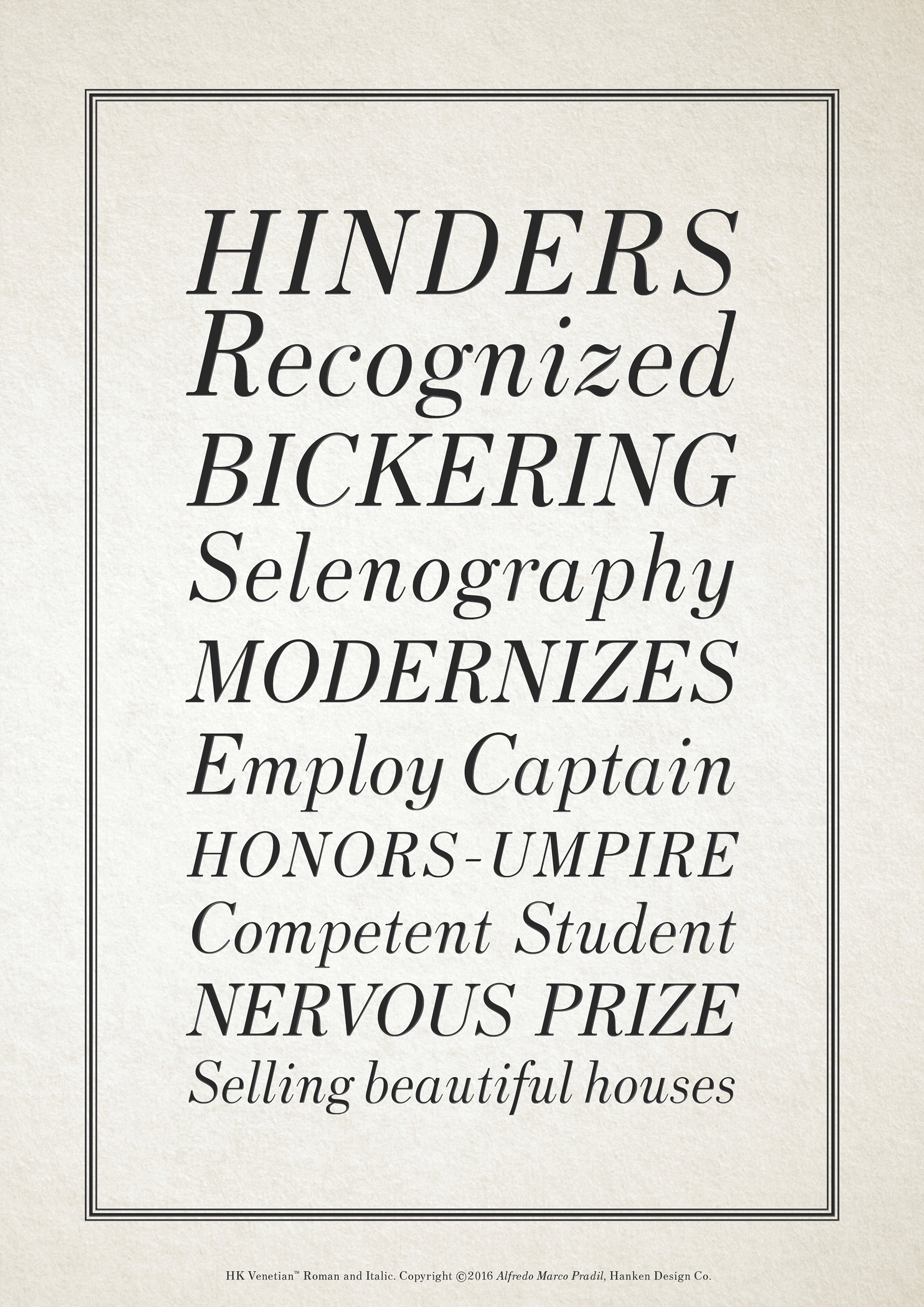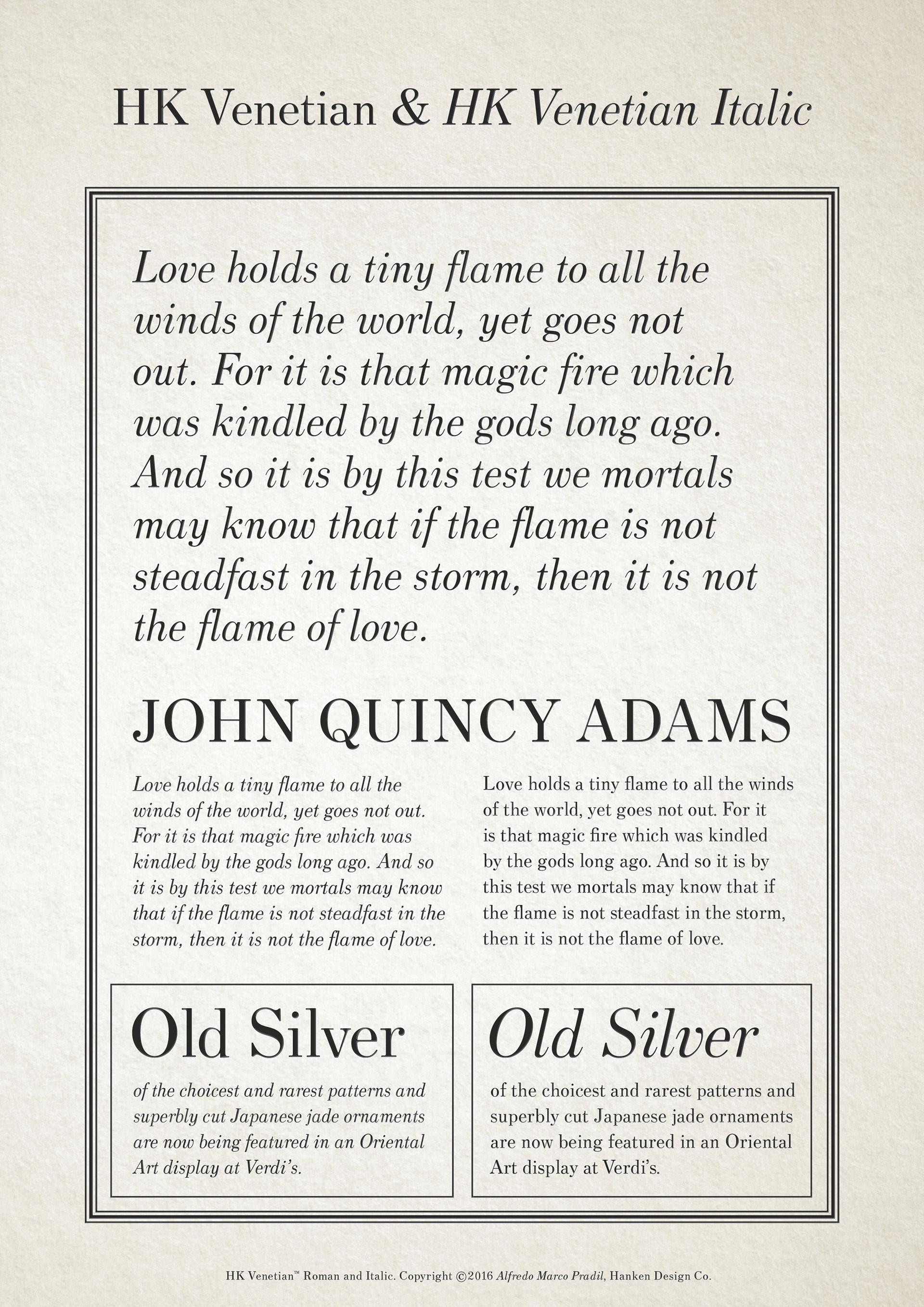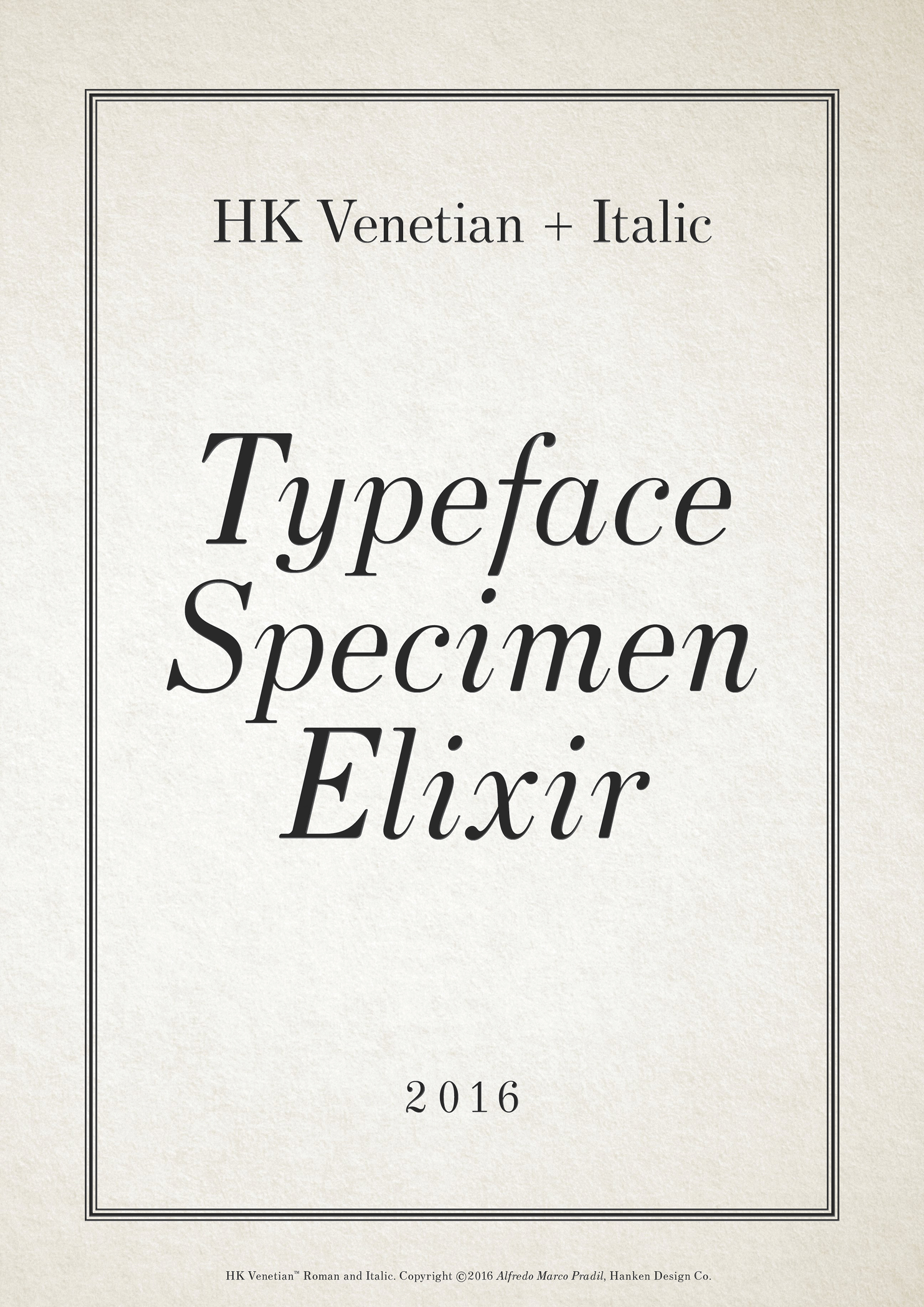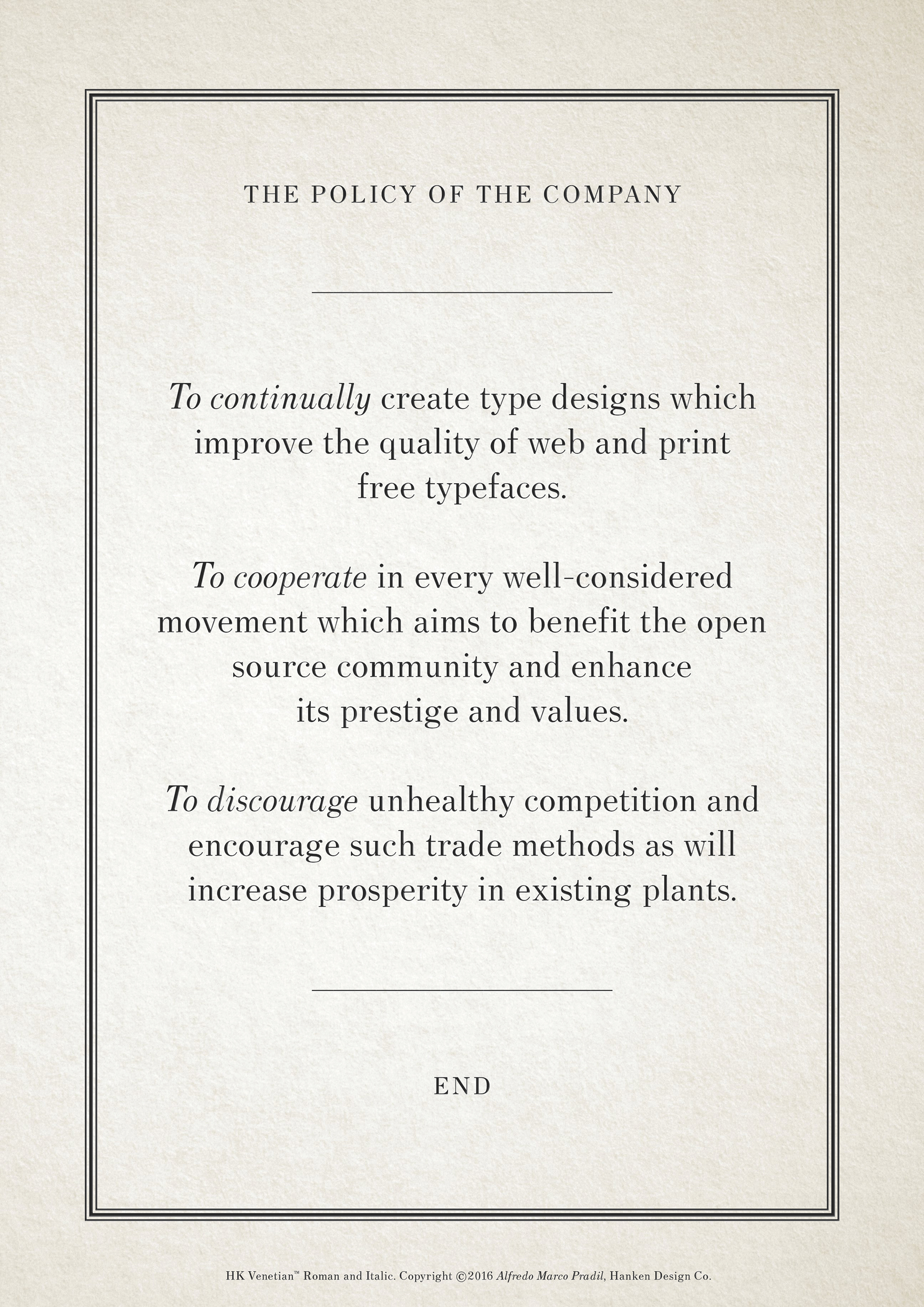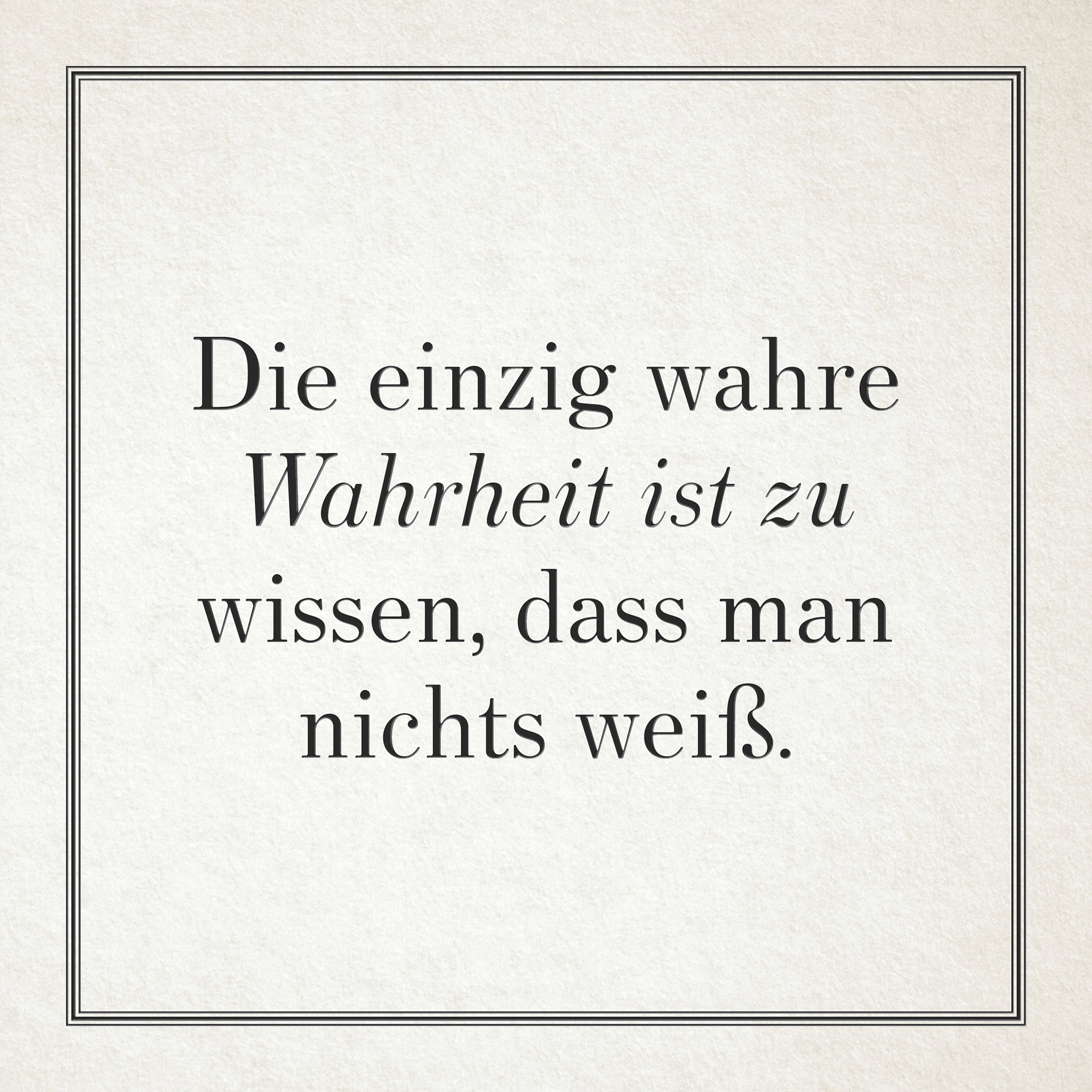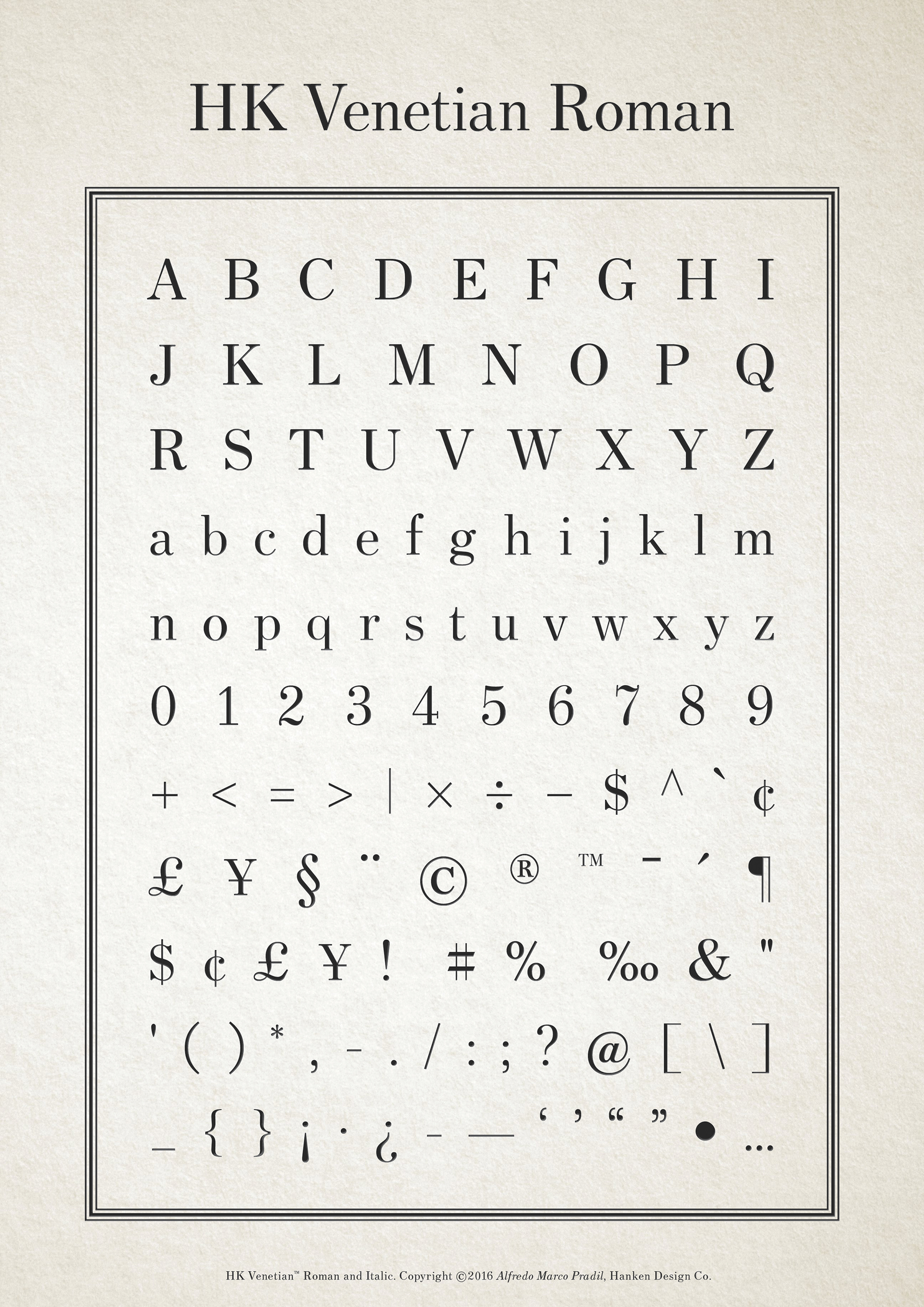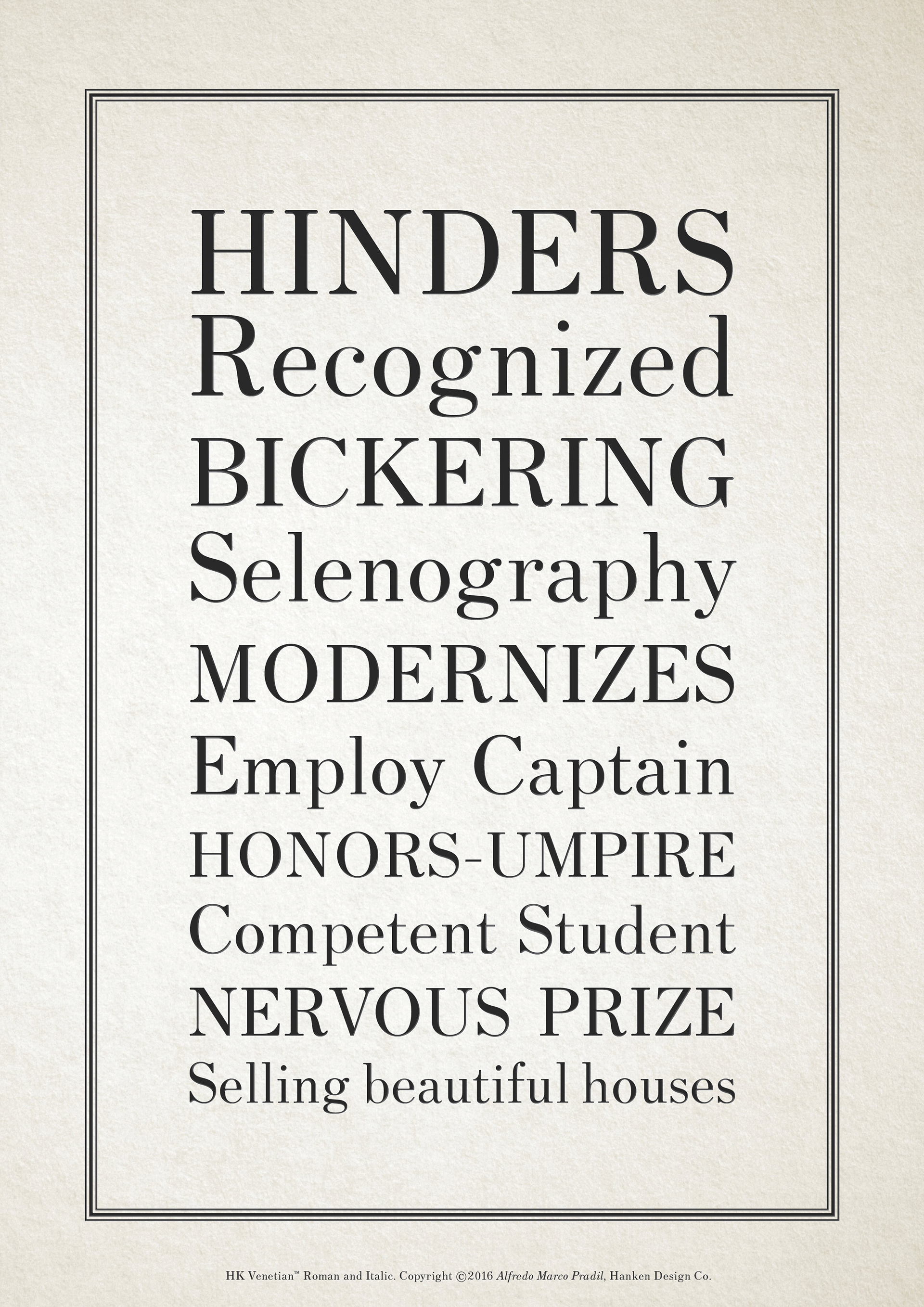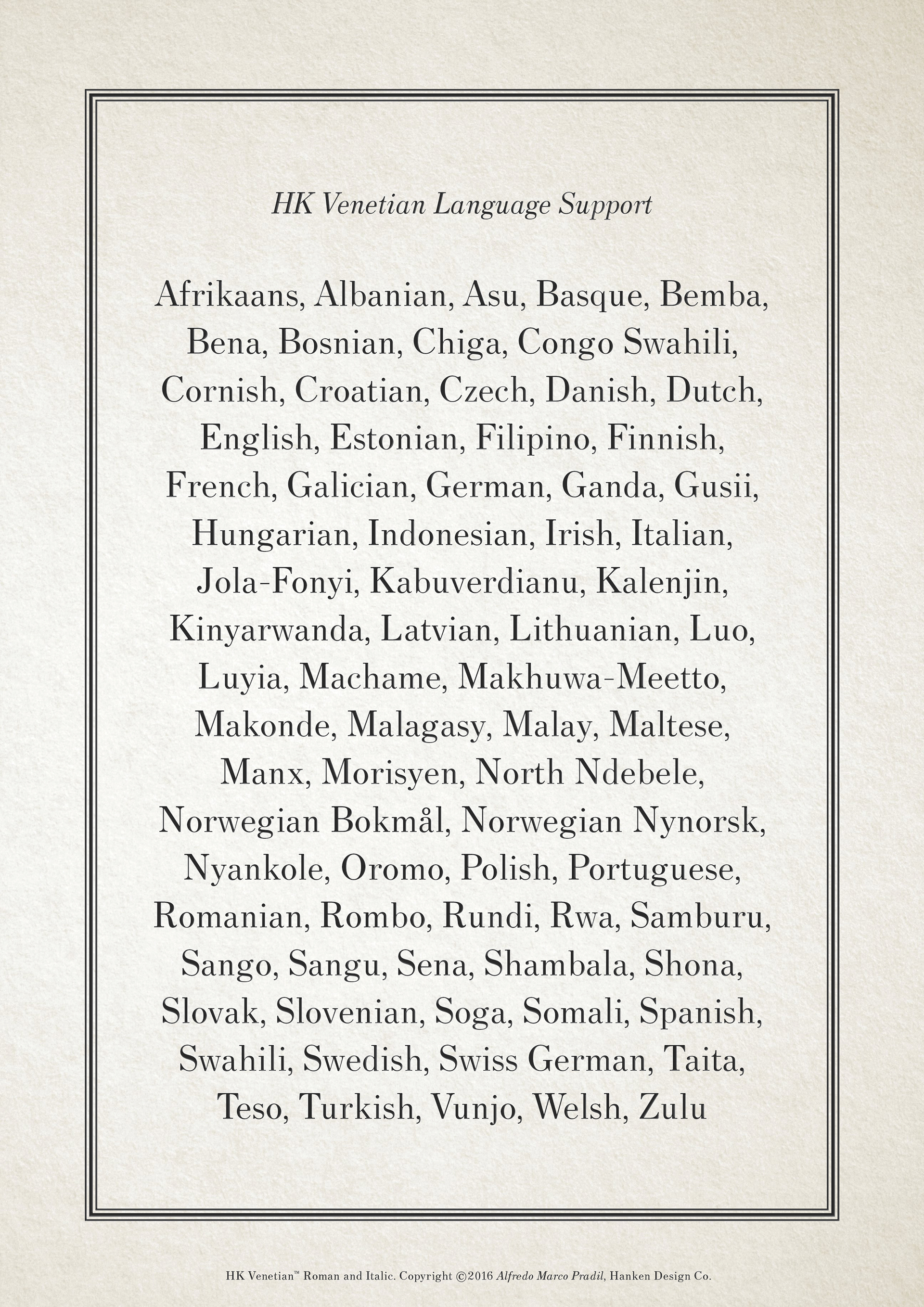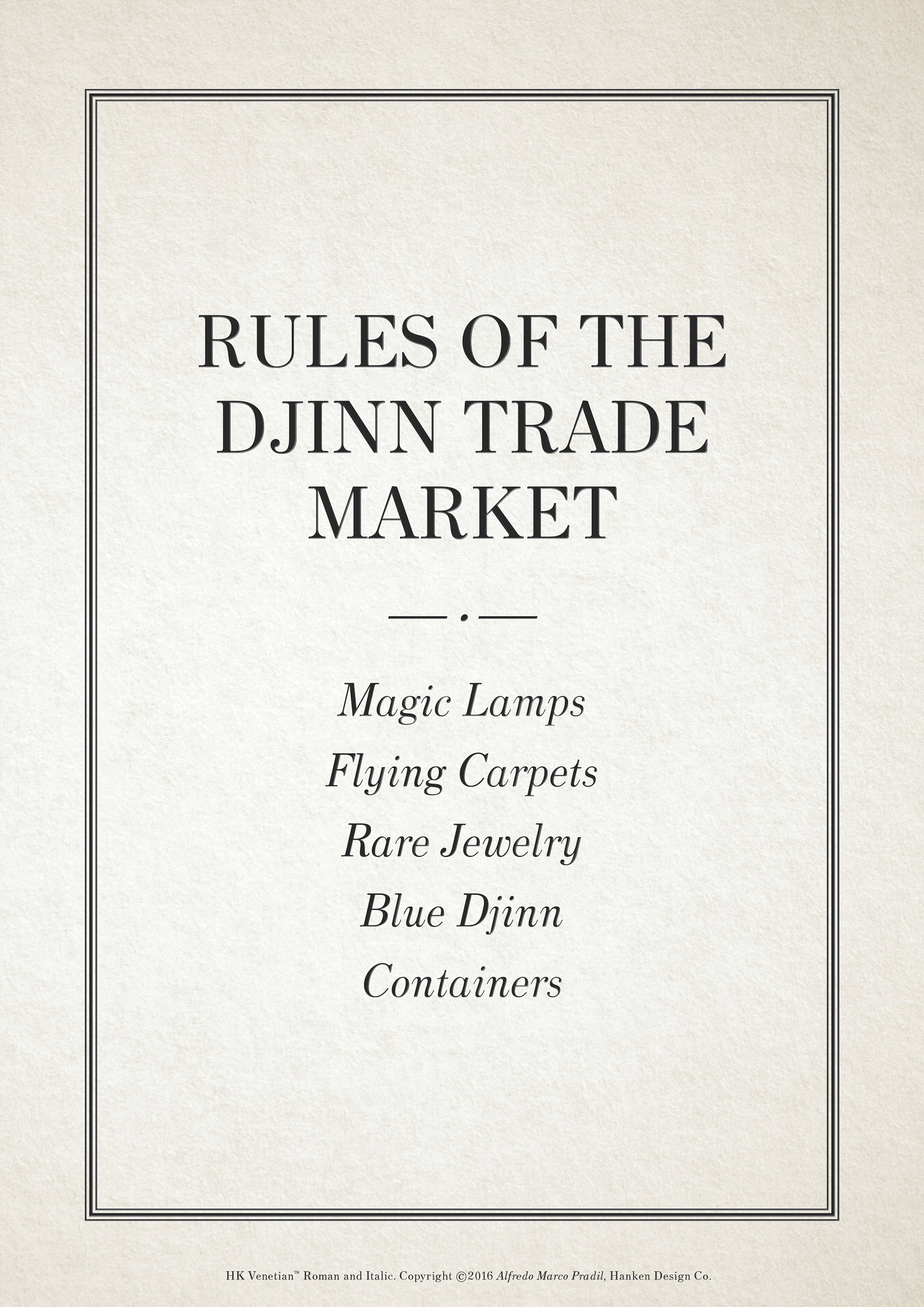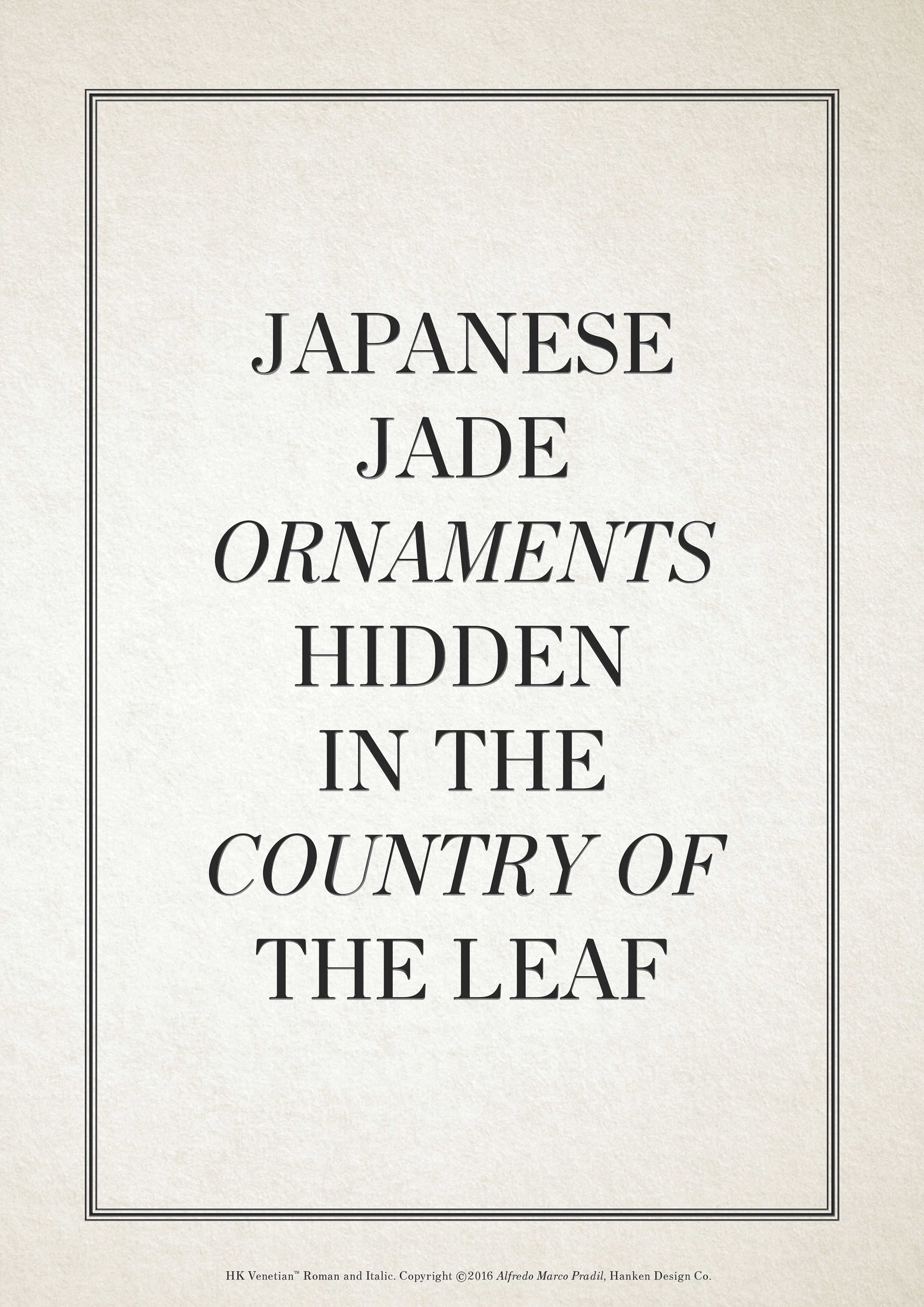
HK Venetian is a typeface revival of a "lost gem" — Venetian by Morris Fuller Benton. I tried to be as close as possible to the original by tracing and making the forms more geometric (like the corner brackets and the serifs). I used FontForge as my main tool and finishing up with Glyphs.